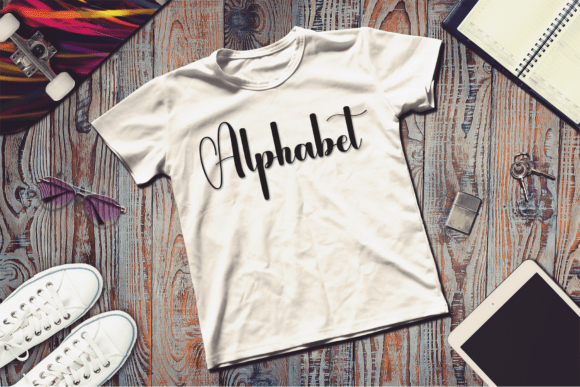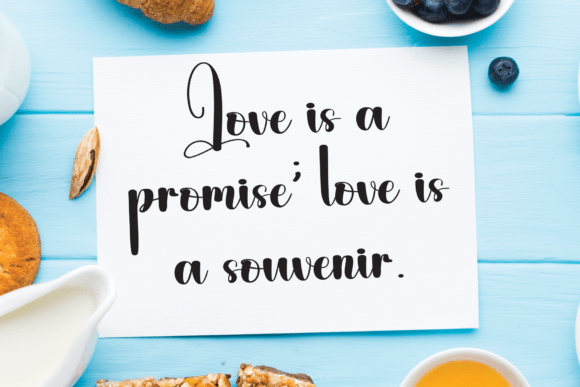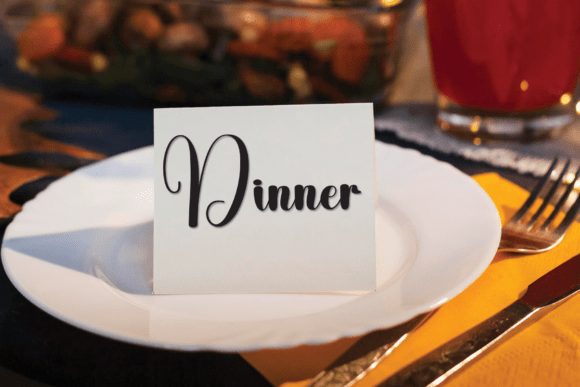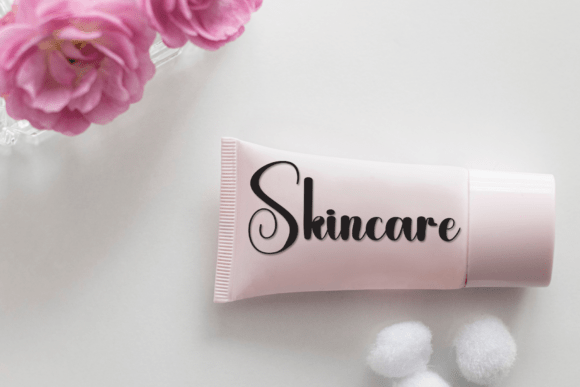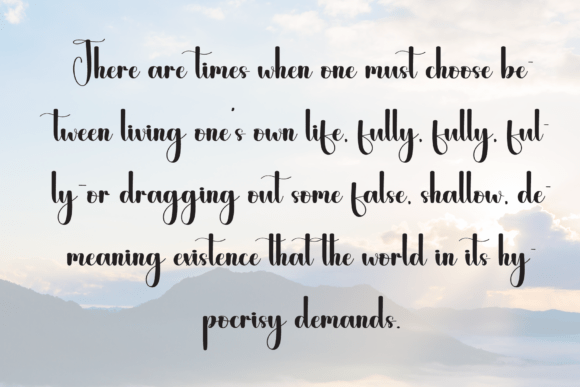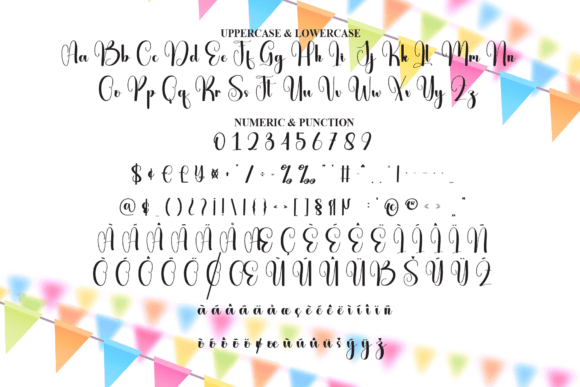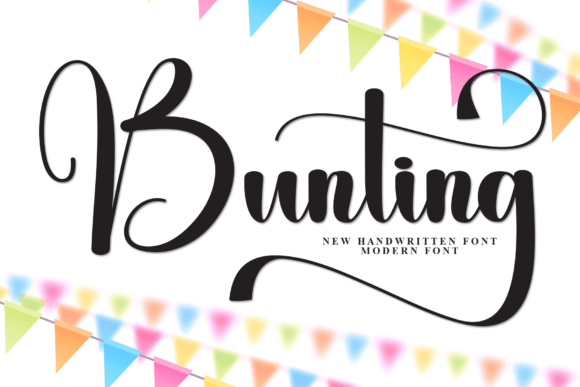
Unlocking Creative Potential with Bunting Font
Have you ever been in the middle of a design project, pouring your heart and soul into it, only to hit a roadblock when it comes to finding the perfect font? I certainly have. It was during one of those moments, working on a wedding invitation design, that I stumbled upon the Bunting Font. And let me tell you, it was a game-changer. The elegant, flowing letters seemed to bring the entire design to life, infusing it with a touch of sophistication and whimsy.
What Makes Bunting Font Special?
Bunting Font is more than just a collection of letters; it’s a tool that can elevate your designs, making them stand out in a sea of sameness. Whether you’re working on wall displays, wedding invitations, social media post logos, advertisements, product packaging, or any project that requires a bit of flair, this font is designed to deliver. Here are some of the features that make Bunting Font a must-have in your design arsenal:
- ✨ Latest style letters perfect for a variety of design projects
I’ve had the pleasure of working with Bunting Font on several projects, and there are a few things that really stand out to me:
- ✨ The versatility of the font – it’s suitable for a wide range of projects, from elegant wedding invitations to bold advertising materials.
- ✅ The level of detail and care that has gone into creating the font – it shows in the quality of the letters and the attention to detail.
While Bunting Font has won me over, there are a couple of things to keep in mind:
- ⚠️ Some users might find the font a bit too ornate for very minimalist designs. However, I see this as a strength rather than a weakness, as it adds character to the designs.
The Story Behind Bunting Font
While the exact origins of Bunting Font are shrouded in mystery, it’s clear that the creators were on a mission to craft a font that would inspire creativity and bring a touch of elegance to any design project. The attention to detail and the care that has gone into creating Bunting Font are evident in its high-quality letters and ease of use.